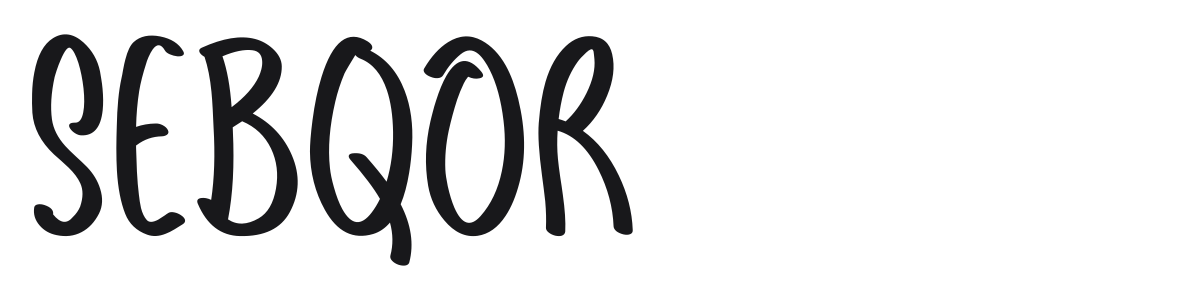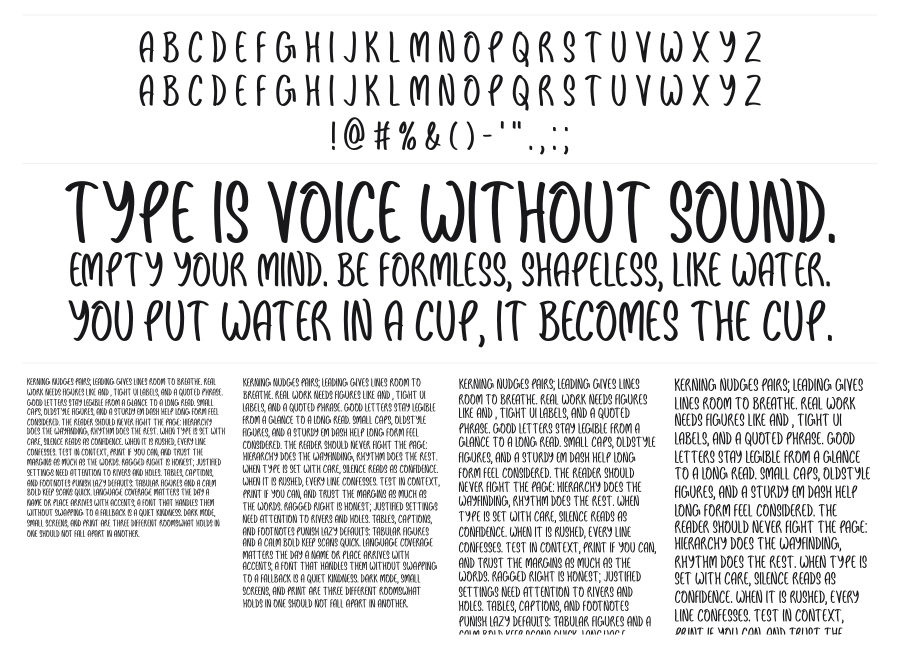
Sebqor
Sebqor is a bold hand-drawn display font with a casual, comic-book personality. The letters carry just enough stroke variation and rounded warmth to feel handcrafted without being a full script. It brings an energetic, approachable tone to packaging, posters, and brand identities aimed at younger or informal audiences.